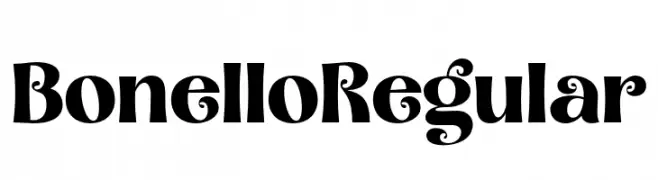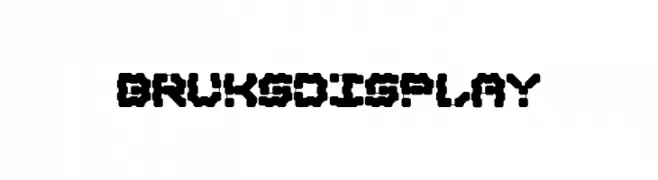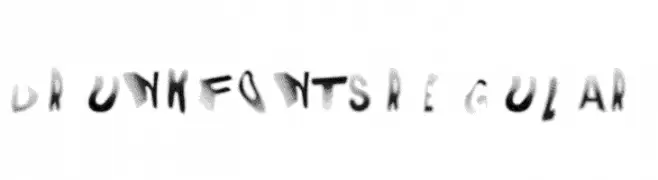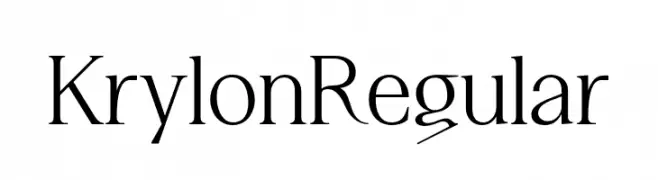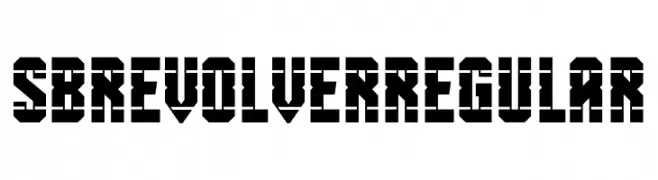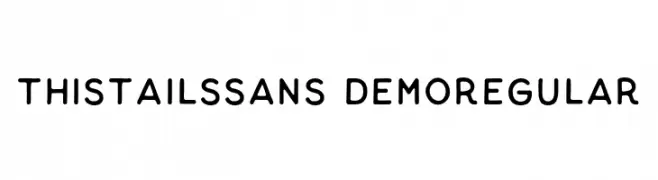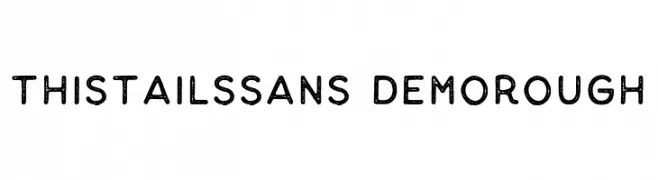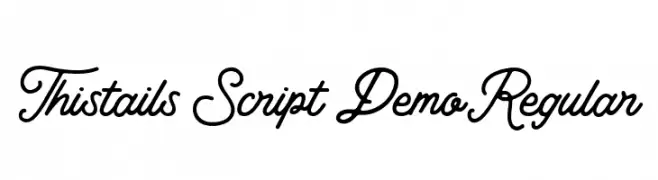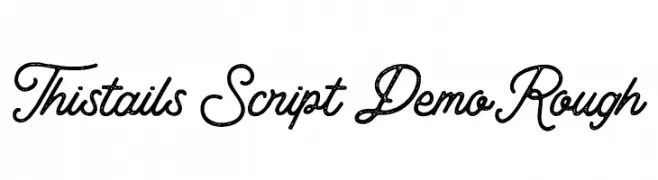
A bold, monospaced font with a modern and technical style.
A classic serif font with high contrast and elegant strokes.
A bold, geometric font with a digital, pixelated style.
( Fonts by Creative Media Lab )
A bold, decorative font with playful, curly serifs and a whimsical style.
( Fonts by SelfBuild Type Foundry )
A bold, geometric stencil font with an industrial feel.
( Fonts by VSV Belgium )
A playful, whimsical font with uneven, distorted letterforms and a brush-like texture.
( Fonts by Panatype Studio )
A textured, distressed sans-serif font with a vintage, hand-crafted look.
( Fonts by Panatype Studio )
An elegant script font with flowing, handwritten-style letterforms.
( Fonts by Panatype Studio )
A playful, rounded sans-serif font with smooth curves and a friendly appearance.
( Fonts by Panatype Studio )
A playful, hand-drawn script font with a rough, textured appearance.